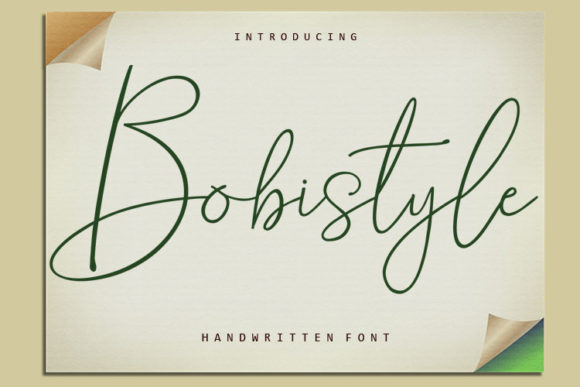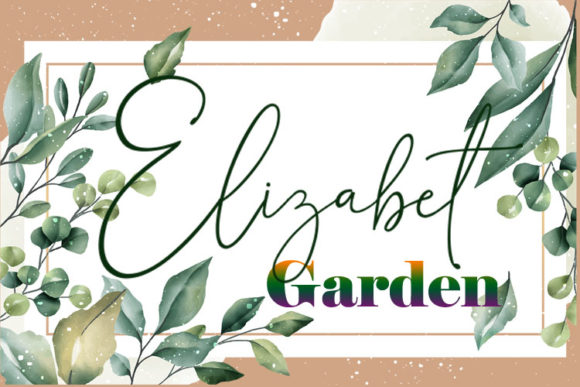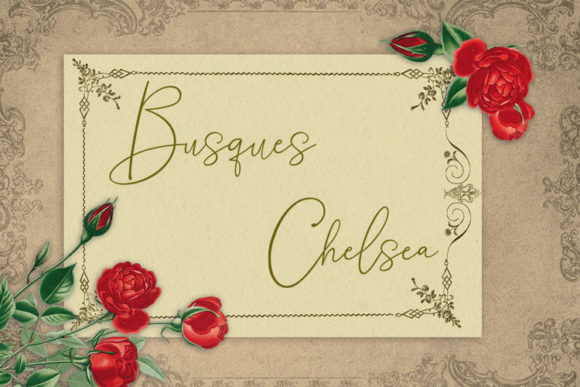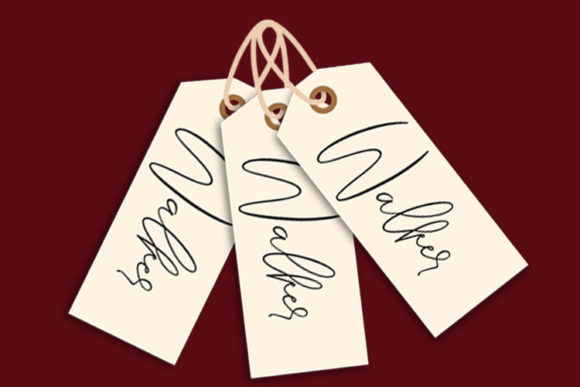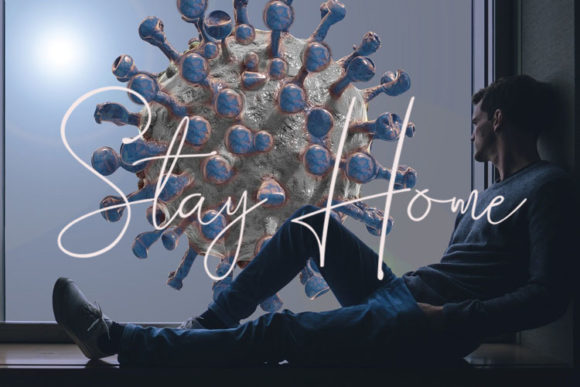
Bobistyle Font
About Bobistyle Font
Bobistyle feels equally charming and elegant. Whether you’re looking for fonts for Instagram or calligraphy scripts for DIY projects, this handwritten font will turn any creative idea into a true piece of art!